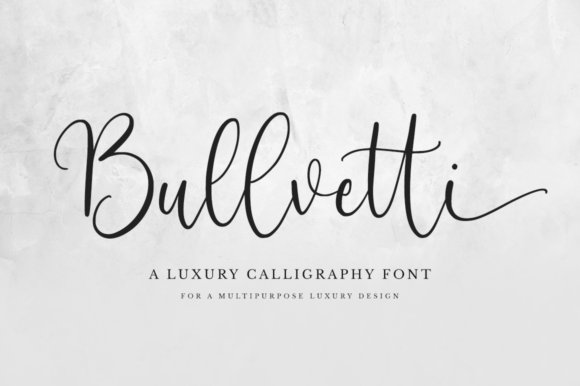
Behold, Bullvetti - a captivating script font that dances across your designs with undeniable grace and charm. Its elegantly crafted characters, meticulously designed to achieve a harmonious balance, create a captivating visual narrative that's sure to leave a lasting impression.
Immerse yourself in the allure of Bullvetti, a font that seamlessly blends the timeless beauty of handwritten calligraphy with a contemporary, sophisticated touch. Experience the exhilaration of transforming your creative visions into extraordinary masterpieces with this exceptional font.
Unleash the power of Bullvetti to elevate your editorial designs to new heights of elegance and refinement. Allow your words to flow effortlessly across the page, guided by the sweeping curves and delicate flourishes of this enchanting font. Create captivating headlines that demand attention, body text that invites readers to delve deeper, and quotes that resonate with emotional intensity.
With Bullvetti as your trusted companion, you'll embark on a journey of creative exploration, discovering hidden depths of expression and artistry within your designs. Embrace the allure of this magnificent font and let your imagination soar as you craft designs that captivate and inspire.